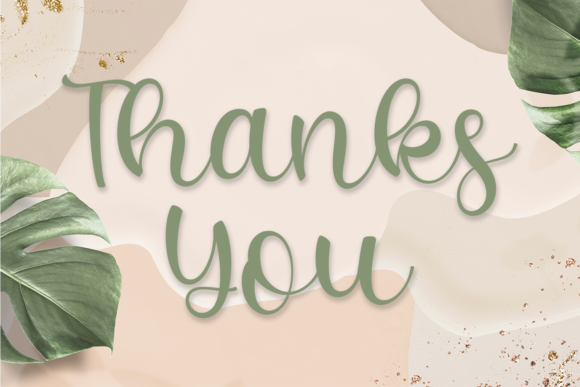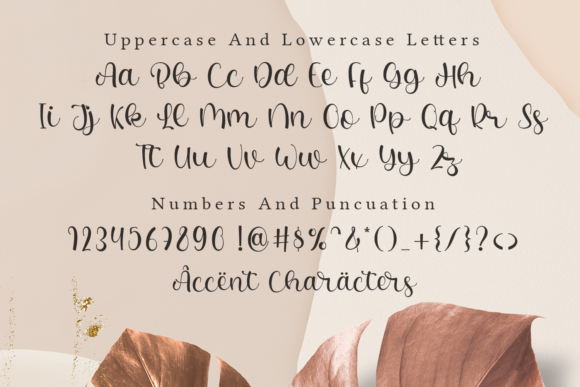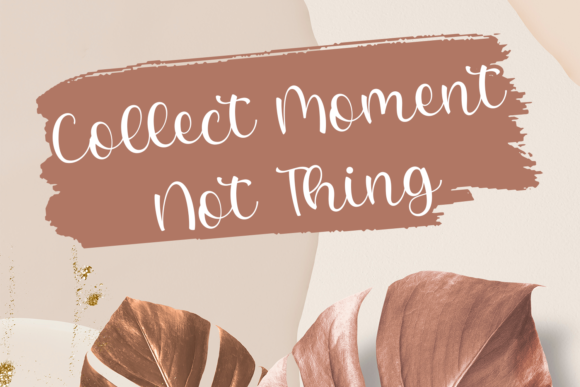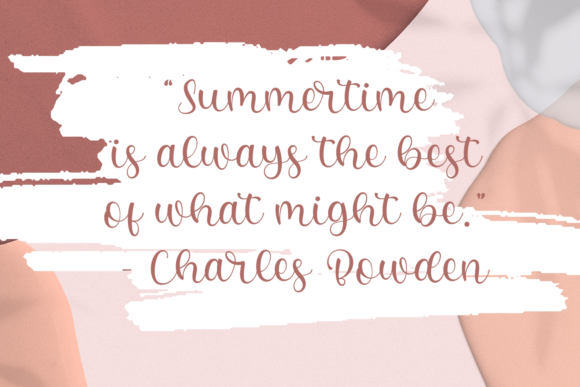
Introducing the Delightful Butterfly Font: Elevate Your Designs with a Touch of Whimsy
Are you on the hunt for a font that embodies warmth, romance, and playfulness? Look no further than the enchanting Butterfly Font. This sweet, round-lettered, and neat handwritten font is designed to transform your project ideas into real works of art. With its effortless charm and versatility, Butterfly Font is sure to captivate designers, crafters, and creative enthusiasts alike.
The Essence of Butterfly Font
Butterfly Font is a beautiful, handwritten typeface that exudes a sense of joy and lightness. Its rounded letters and gentle curves create a warm and inviting aesthetic, perfect for projects that require a touch of whimsy and romance. Whether you’re designing wedding invitations, crafting social media graphics, or creating engaging content, this font is sure to add a dash of personality to your work.
Key Features of Butterfly Font
- Sweet and Round-Letered: Butterfly Font features rounded letters that give it a soft, cuddly feel. This makes it perfect for designs that require a touch of warmth and approachability.
- Neat Handwritten: Despite its handwritten nature, Butterfly Font boasts a surprising level of legibility and neatness. This makes it suitable for body text, headings, and titles.
- Warm and Romantic: The font’s gentle curves and flowing lines evoke a sense of romance and warmth, making it perfect for projects that require a touch of elegance.
- Jolly and Playful: Butterfly Font’s playful nature makes it an excellent choice for designs that require a dash of fun and whimsy.
Endless Variations at Your Fingertips
One of the most exciting aspects of Butterfly Font is its incredible versatility. With a wide range of possible variations, you can experiment with different styles, sizes, and colors to create unique and captivating designs. Here are a few ideas to get you started:
- Mix and Match: Combine Butterfly Font with other fonts to create striking contrasts and visually appealing hierarchies.
- Color Play: Experiment with different colors and textures to add depth and interest to your designs.
- Size and Scale: Play with font sizes and scales to create visual interest and emphasize key elements.
Butterfly Font is an excellent addition to any designer’s or crafter’s toolkit. Its versatility and charm make it suitable for a wide range of projects, including:
- Wedding and Event Design: Create stunning wedding invitations, save-the-date cards, and event branding with Butterfly Font.
- Social Media Graphics: Add a touch of personality to your social media graphics, blog posts, and website headers.
- Stationery and Paper Crafts: Use Butterfly Font to create beautiful stationery, journals, and paper crafts.
In conclusion, Butterfly Font is a delightful, handwritten typeface that is sure to capture your heart. With its sweet, round-lettered design, warm and romantic aesthetic, and endless variations, this font is perfect for designers, crafters, and creative enthusiasts alike. So why wait? Dive into the world of Butterfly Font and discover the magic of whimsical typography.